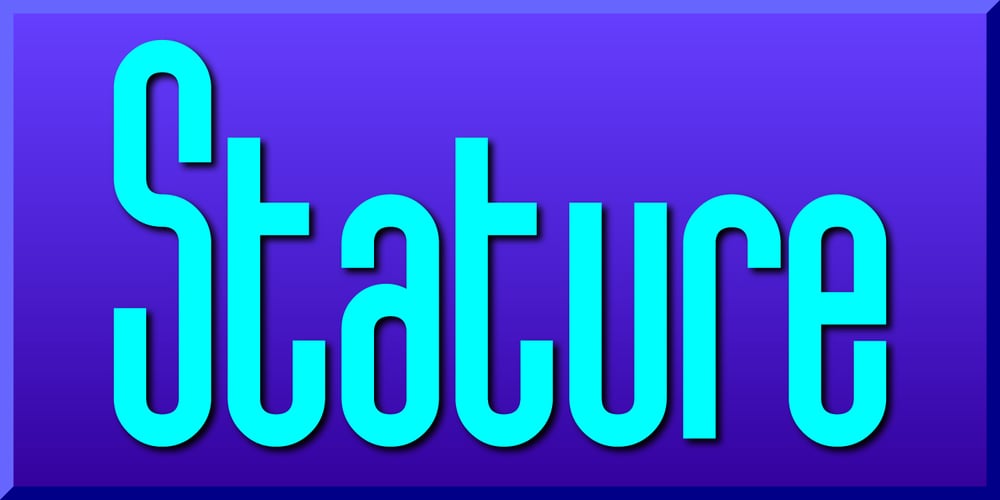
Stature
Stature font
Stature Font Family was designed by Gerald Gallo and published by Gerald Gallo. Stature contains 1 styles and family package options. Stature is an original, clean and crisp, sans serif compressed font, which can be used for text or as an effective display font. The font includes upper and lowercase alphabets, numbers, punctuation, accented characters, symbols, and miscellaneous characters.